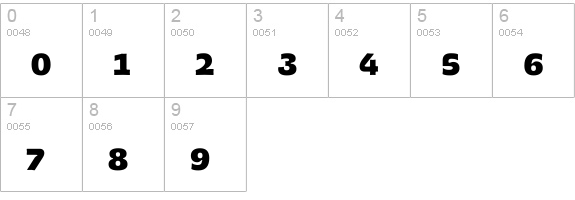
SpotkaBlack SC Font Details
SpotkaBlack SC font is a modern and sleek typeface designed for both display and text purposes. This font features clean lines and a bold yet sophisticated style that is perfect for various design projects. With its unique character shapes and elegant appearance, SpotkaBlack SC font adds a touch of contemporary flair to any creative endeavor. One of the best things about SpotkaBlack SC font is that it is available for free download at FontsMarket.com. This means that you can easily access this stunning font and use it in your projects without any cost. Whether you are working on branding, advertising, web design, or any other creative project, SpotkaBlack SC font is a versatile choice that will help you make a bold statement. Don't miss out on the opportunity to enhance your designs with the beauty and versatility of SpotkaBlack SC font. Download it for free today and take your projects to the next level!